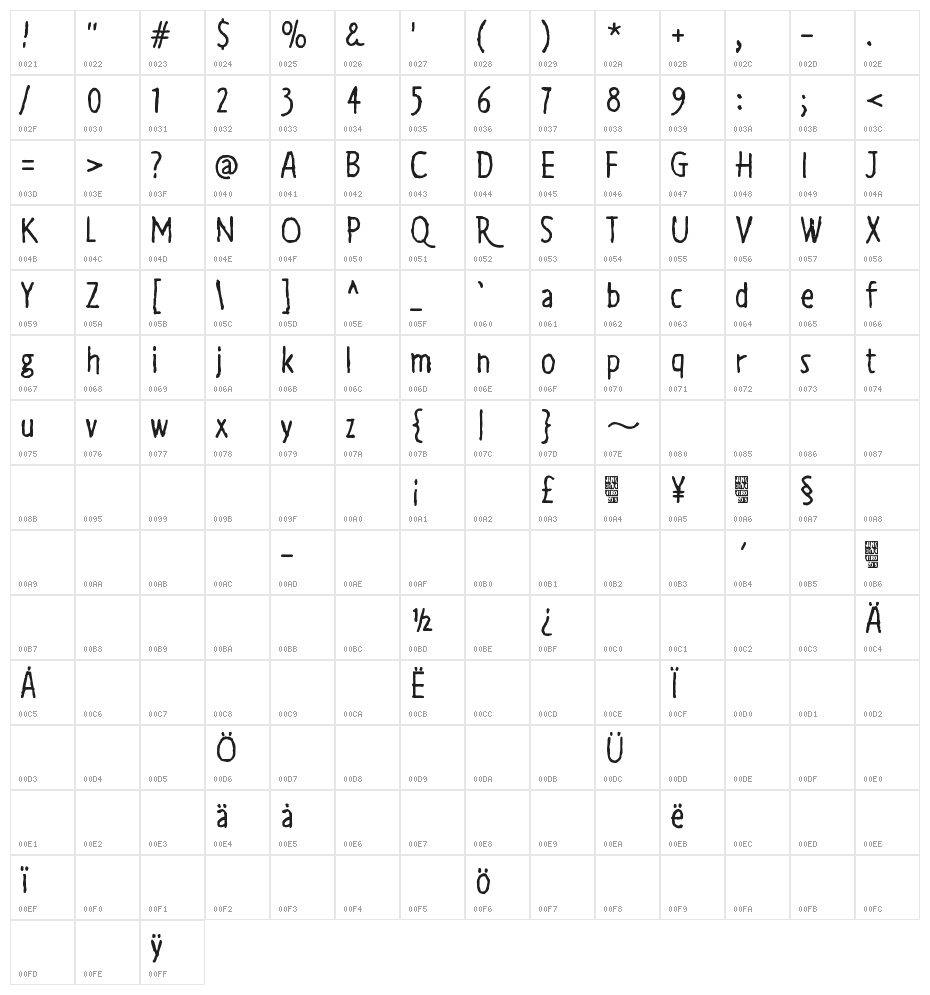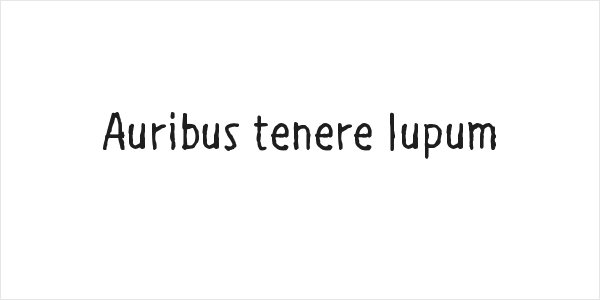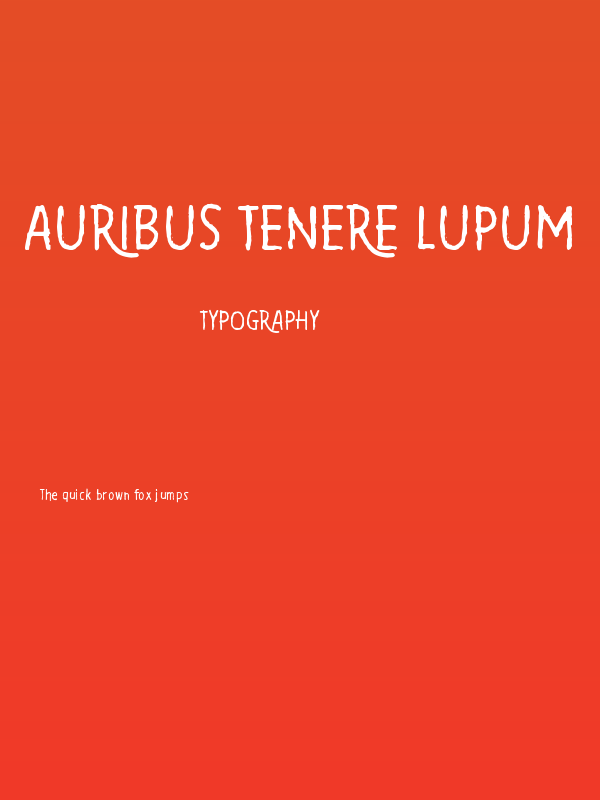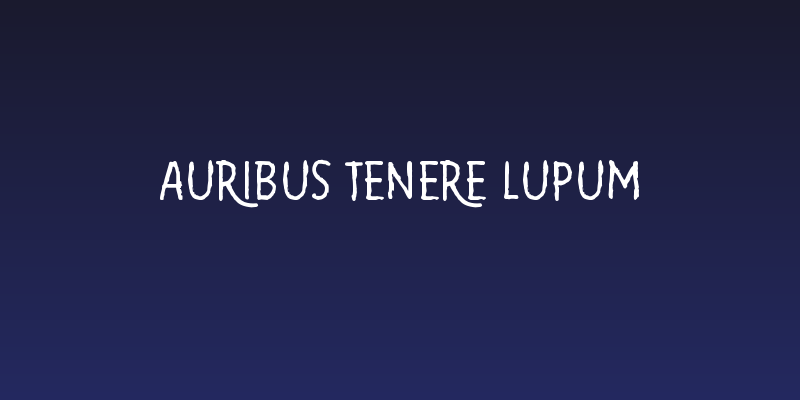
Auribus tenere lupum Font
Auribus tenere lupum Description
This font features a hand-drawn, rustic style that gives it a personal and organic feel. The characters are slightly irregular, with uneven strokes that add to its charm and uniqueness. The uppercase and lowercase letters maintain a consistent style, with rounded edges and a playful appearance. Numbers and special characters follow the same aesthetic, making the font versatile for various uses. The overall look is casual and approachable, suitable for projects that require a touch of whimsy and creativity.
| Proposed Projects | Ideal for children's books, greeting cards, casual branding, and creative projects that benefit from a personal touch. |